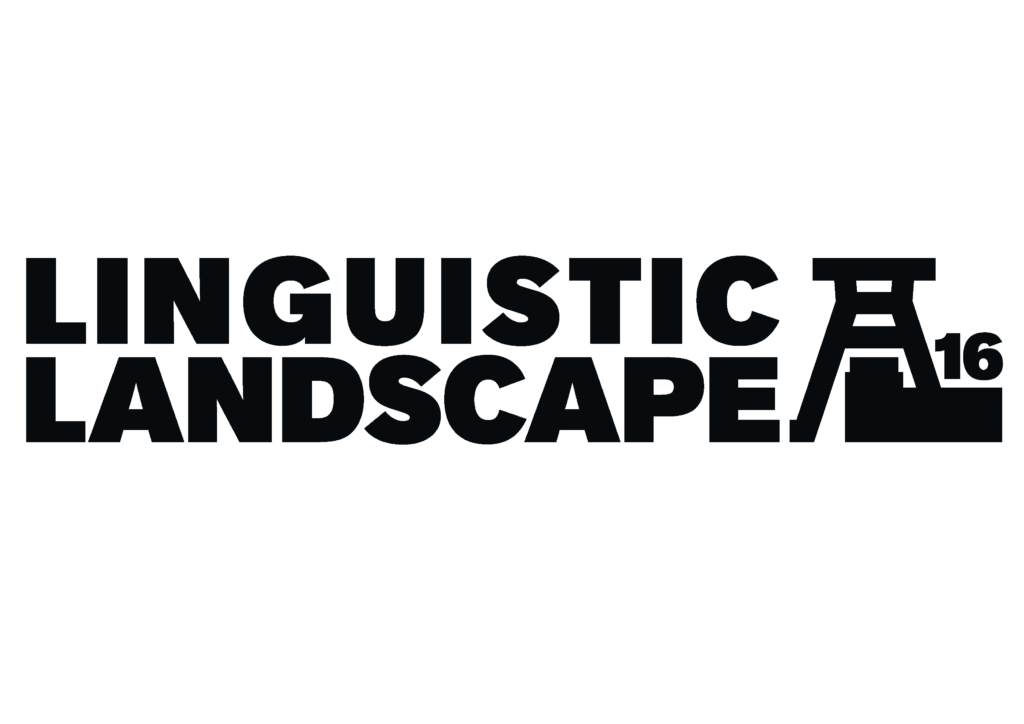
For this Real Job I redesigned the logotype for the 16th workshop of Linguistic Landscape – a conference held that was held at the University of Duisburg-Essen located in the Ruhr area of North Rhine-Westphalia, Germany in 2025. The conference is held at a different location every year, so requires a new, bespoke identity each time.
Aim for the job
The goal was to create an identity for the conference that reflected the industrial heritage of the area to be used both on screen, on the client’s website and BlueSky, and off screen, on an array of merchandise such as tote bags, cups and pens (figs 01 to 04)
Core deliverable
The primary objective for this job was to produce a logo that has two variations; extended and condensed. This was because the client did not want to be constrained when selecting the range of aforementioned objects to apply the logo to, because of the range between their sizes. I achieved this by integrating a mascot into the full logotype, the Zeche Zollverein – a modernist structure that was formally a coal mine shaft – which could be removed and integrated with the initial of the extended logotype (L) to form the condensed logo. This allowed for smaller objects, such as pens, to be branded, as well as larger objects, like tote bags, simultaneously. The client also later requested to have multiple texturised versions of both logos to add greater depth to the identity by referencing the surrounding area of the conference’s industrial history as showcased later.
Research
As the client was based in Germany, I was unable to visit and collect primary research. As a result, I gathered material online by consulting sources of inspiration that pertained to the client’s needs after our initial client meeting, as detailed next. To keep this research as relevant as possible, I wanted to capture the gritty essence of the conference’s area.
Ideation
After my initial meeting with the client and discussing the job ahead, I created the three mood boards to distill the possible directions that could have wanted to pursue (figs 05 to 07), as this was not concrete. Initially, the client favoured two directions; the protest and the metallic visual styles. Therefore, for the next meeting, I decided to sketch possible appearances of the logo in the industrial style (figs 08 to 09) and conduct some experimentation with tape in the style of placards (figs 10 to 11), to gauge which direction they truly favoured.
Development
The client decided that they preferred the urban, industrial visual style after I presented the mood boards, sketches and experimentation to them. The tape, protest concept wasn’t successful as it jeopardised legibility, and was time consuming to make by hand, which was not sympathetic to the quick-paced nature of the job. Moreover, the client expressed that they liked both Univers and Gotham. To make the decision between both typefaces easier, I redesigned figs 12 and 13 in different ways (fig 14), with each typeface respectively, to provide them with an ample sample to choose one from.
Outcome
Inspired by Factory Record’s logo (fig 15), designed by Peter Saville to be used in association with bands from Manchester, a historically industrial area like North Rhine-Westphalia, the logo’s identity ultimately took influence from it’s modernist nature. However, the texturised logos gave the client the ability to inject a more overt application of the area’s essence into the deliverables being branded.
I successfully produced a set of two logos (figs 16 to 23), both of which have three different texturised versions. As outlined in the brand guidelines that I produced for the client, the black and white renditions of the logos were to be used for print, being vectors, and the texturised logos for screen – the image of the texture (created using filters and effects within Adobe Photoshop) being a .PNG.
Visitors and speakers at the conference also reportedly detailed how when they first saw the logo, they were unaware of what it represented, however after processing it for a few more seconds, the connection to the area’s modernist architecture (fig 24) became obvious. This was the effect that I wanted; avoiding obviousness to create that initial interest.
Reflection
This was my third official Real Job, the other two having been group projects. At first, I was slightly apprehensive, as rebranding an entire conference on my own, happening overseas, receiving the brief at the end of my first year of study, undoubtedly struck me as a challenge. Despite this, I decided to pursue the project, as I knew it was going to pay off and provide me with priceless experience. Overall, the job went smoothly once I distilled what exactly the client wanted within the bounds of my availability alongside my full-time studies.